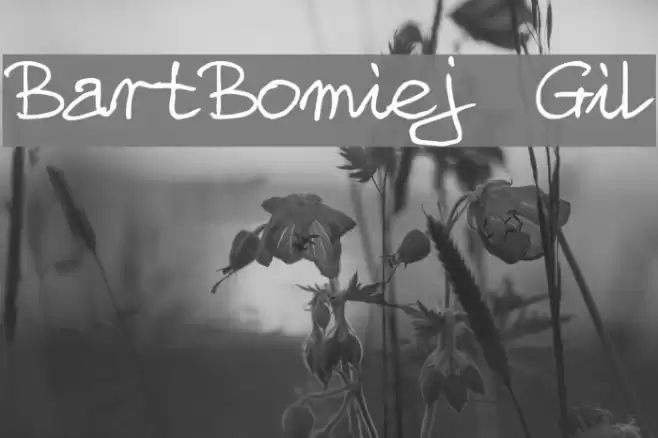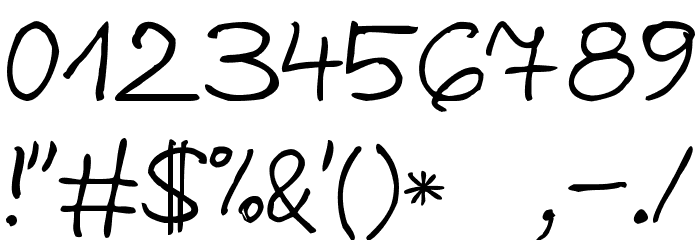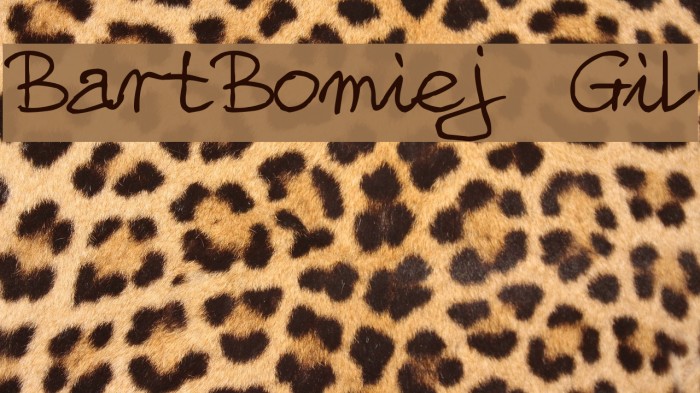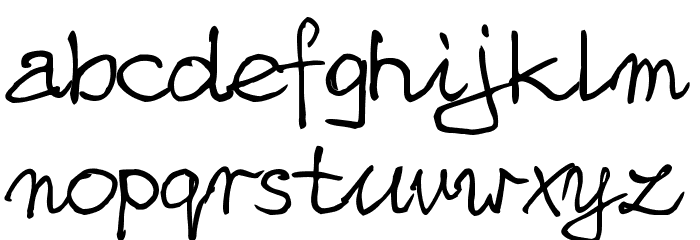
BartBomiej Gil Font
BartBomiej Gil Description
This font features a lively and dynamic handwritten style, characterized by its fluid and slightly irregular strokes. The uppercase letters are bold and assertive, while the lowercase letters maintain a playful and casual appearance. The numerals are distinct and easy to read, complementing the overall informal aesthetic. Special characters are integrated seamlessly, adding to the font's versatility. The strokes vary in thickness, providing a natural and organic feel, reminiscent of a personal note or a creative sketch.
A dynamic and playful handwritten font with fluid strokes from Handwritten fonts.
- Proposed Projects: Ideal for creative projects such as greeting cards, personal branding, casual invitations, and artistic posters.
- Overall Style: Casual
- Use Case: Logos, Headlines, Informal Text